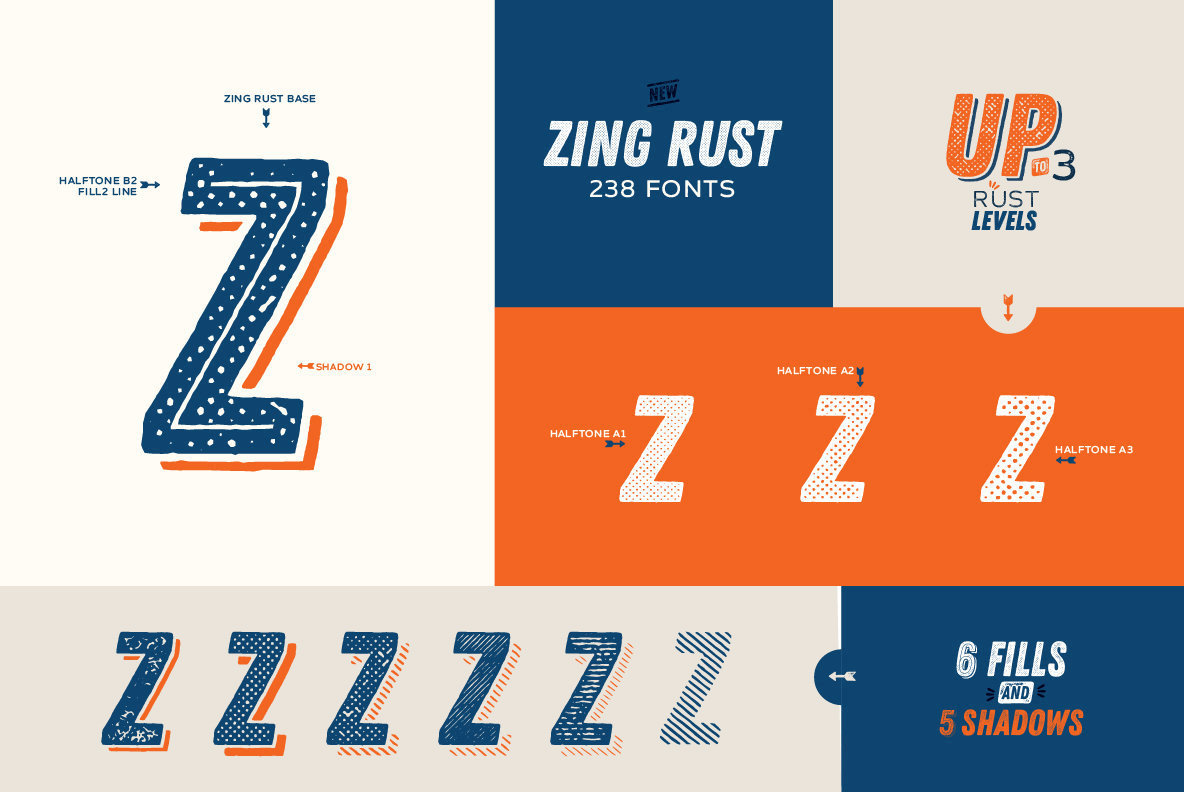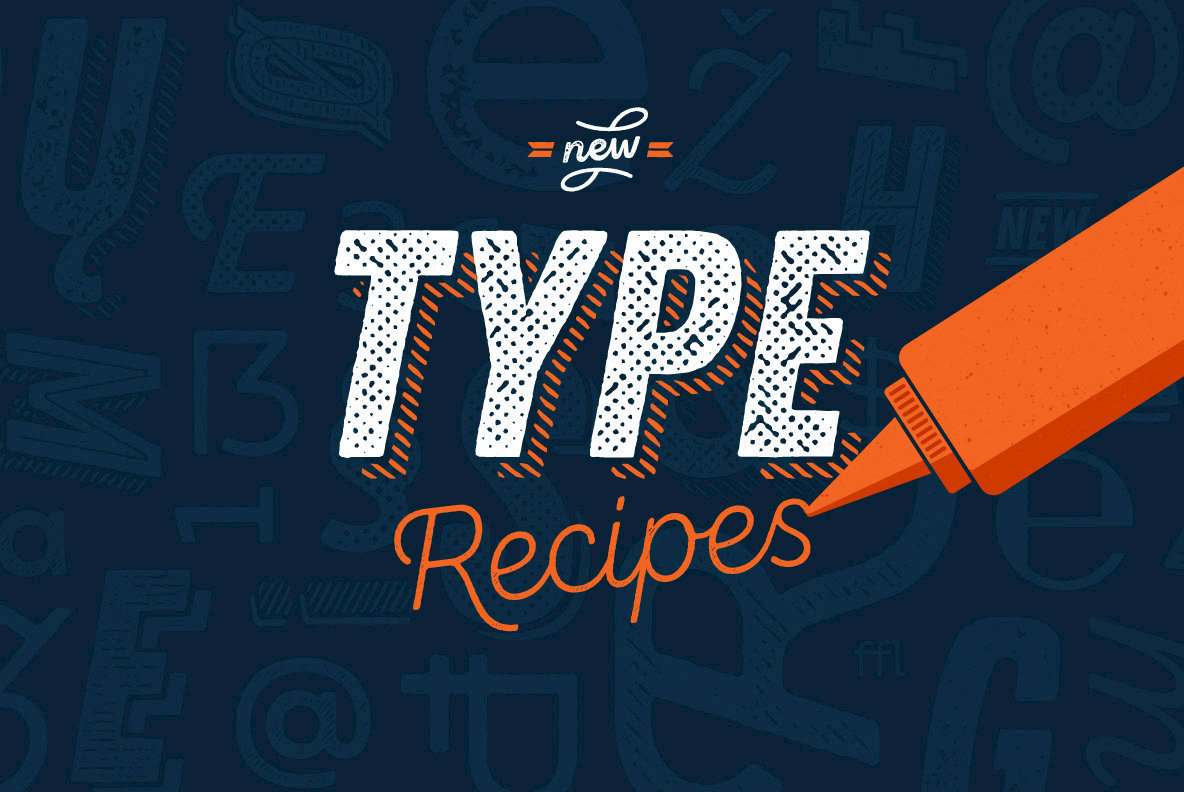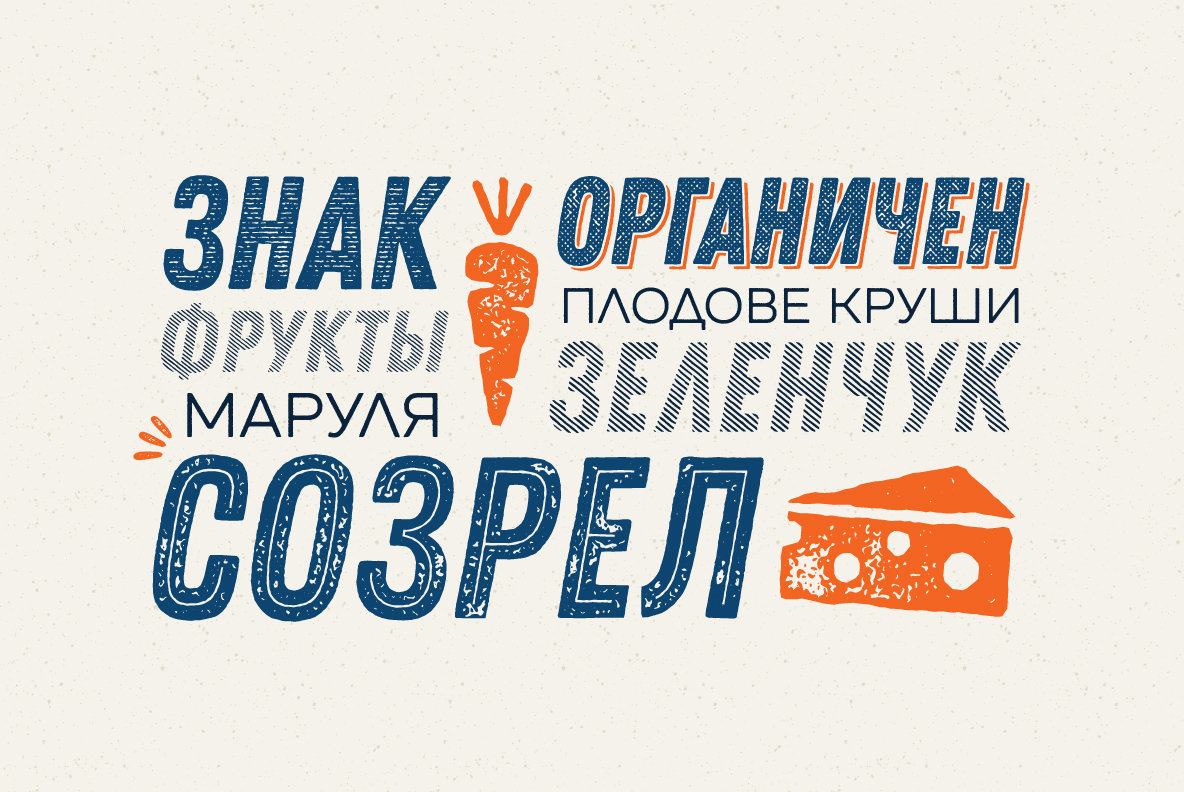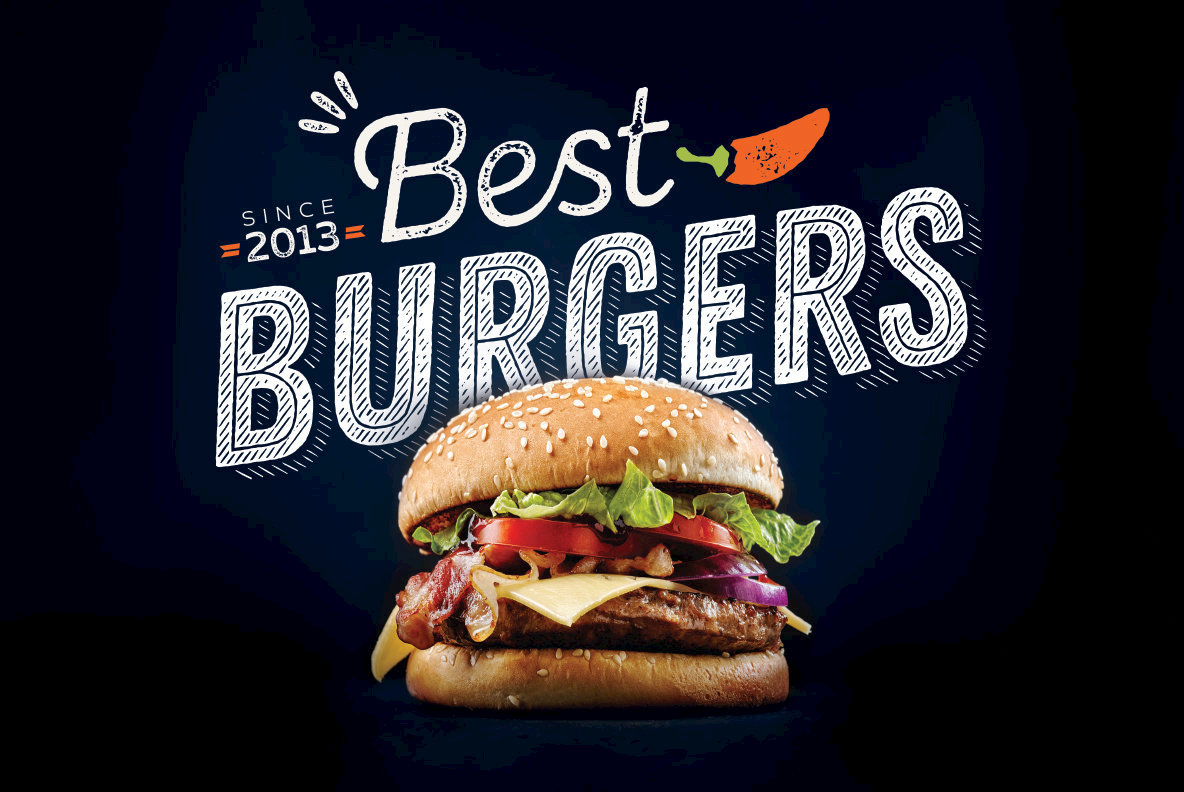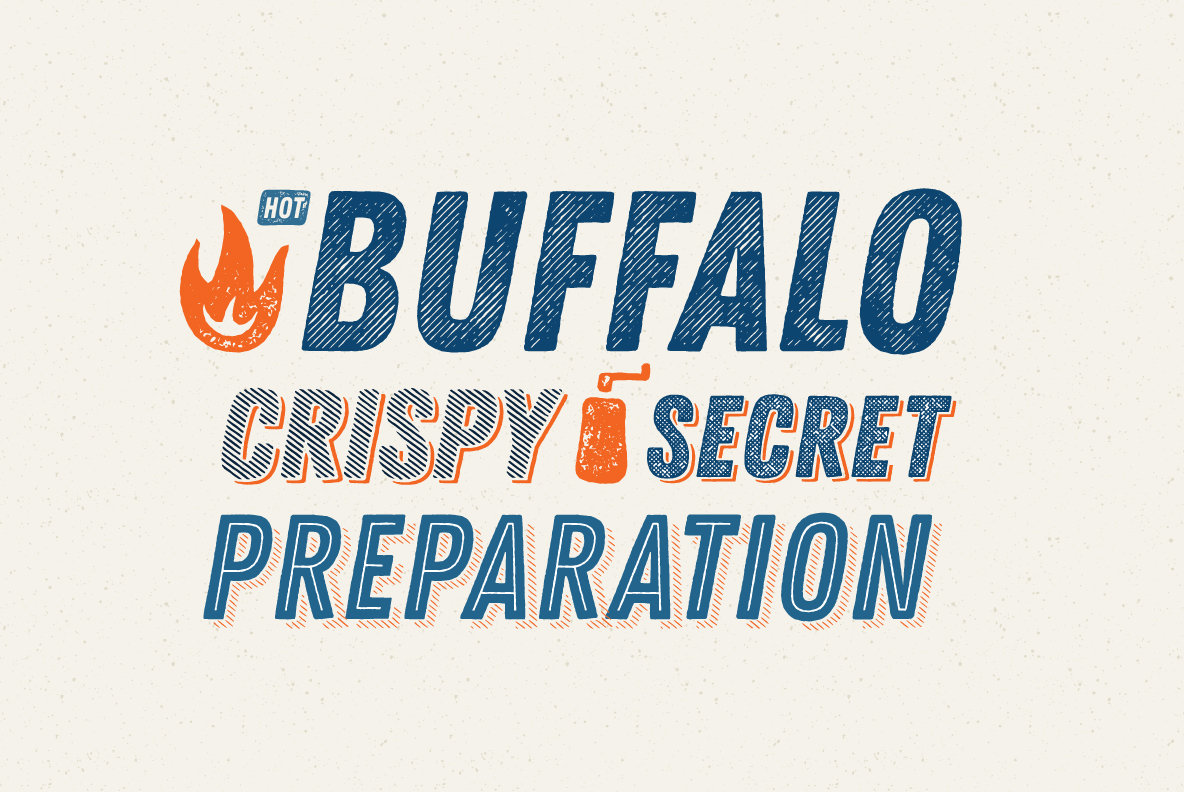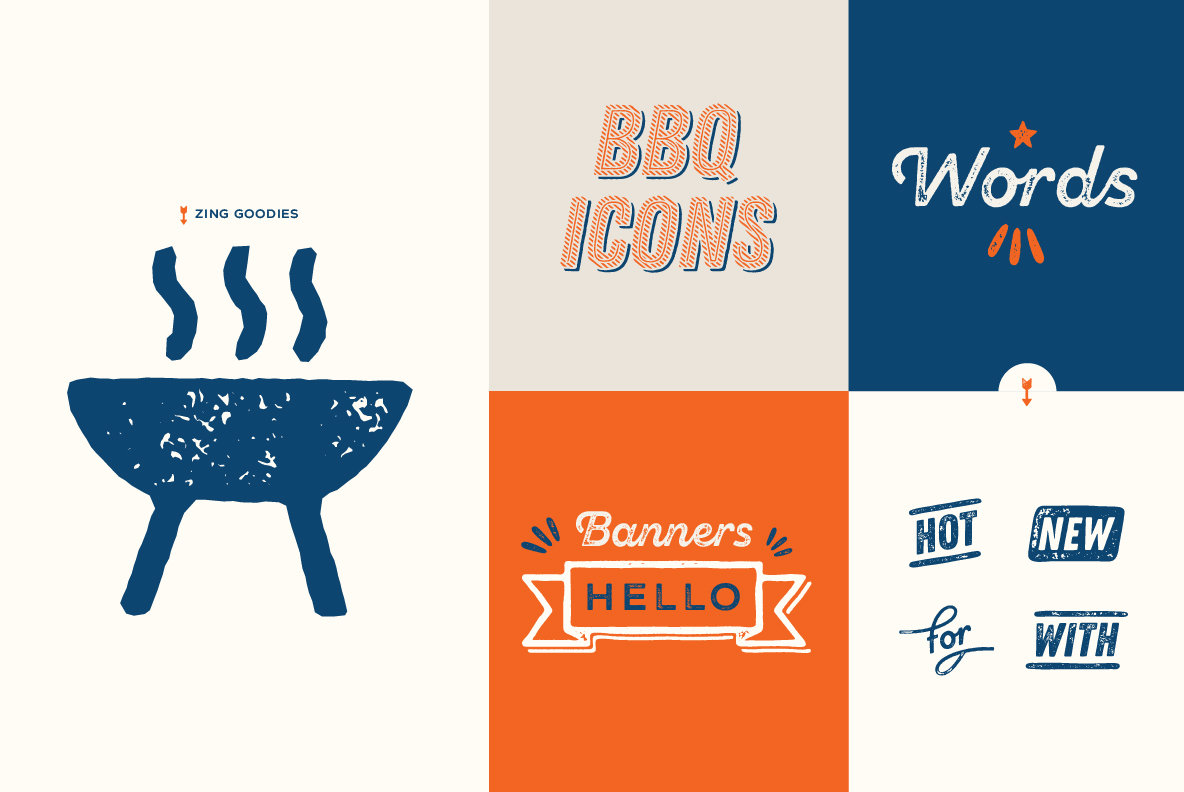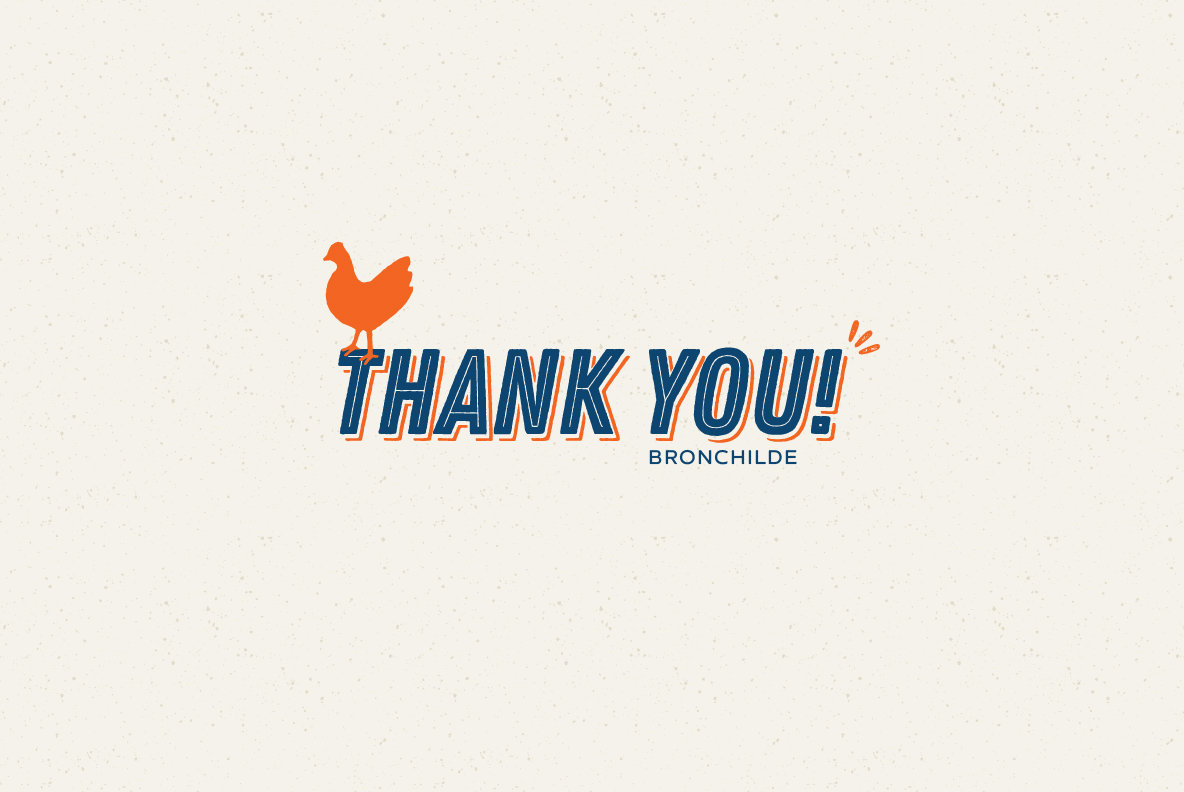
Zing Rust Font
• This bundle is perfect for setting headlines, logotypes. The various style combinations give you endless possibilities to experiment and create an uncountable amount of beautiful designs.